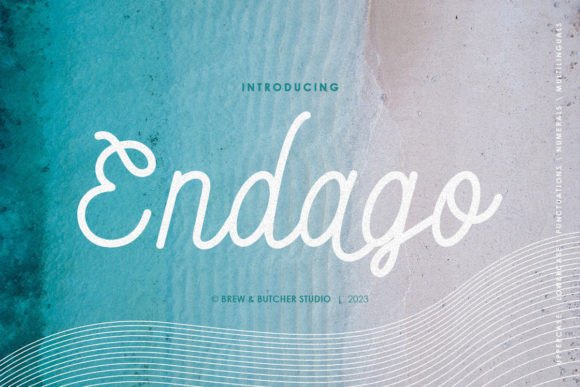
Welcome to Endago's enchanting world, a font family designed to capture the essence of unity and connection. Inspired by the power of the line, Endago offers a harmonious blend of elegance and boldness, making it the perfect choice for expressing your creativity.
Immerse yourself in a world of possibilities with Endago's versatile monoline style. This exquisite font breathes life into your headers and headlines, posters and flyers, banners and landing pages. Transform your portfolios, album covers, and artistic endeavors into masterpieces that resonate with your unique vision.
Endago's remarkable versatility extends to a multitude of design projects. Whether you're crafting invitations that speak volumes or designing logos that leave a lasting impression, Endago's unwavering presence adds a touch of sophistication to every creation.
Embrace the transformative power of Endago and unlock a world of captivating designs. Let your imagination soar as you explore the limitless potential of this extraordinary font family. Endago awaits you, ready to elevate your artistry and leave an indelible mark on the world.